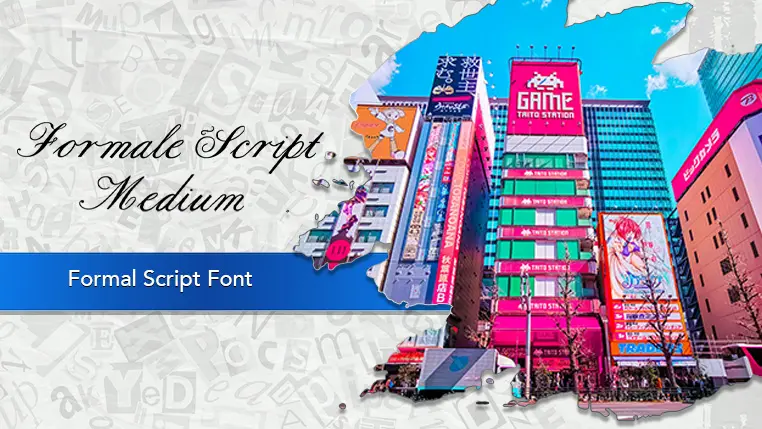
The Formal Script font family may be ideal for you if you enjoy working on an artistic design project. The lively, expressive look of this typeface, which was created by George Williams, makes it ideal for Logos and Branding. The font's sophisticated and graceful style makes it an excellent choice for wedding invitations, formal event announcements, diplomas, and certificates. Use it for headlines in advertisements, posters, or on product packaging to make a bold, elegant statement. and other light-hearted visual projects.
Medium, Bold are the two primary font styles of the Formal Script font family. You may build dynamic, visually appealing text layouts with the distinct flair that each style offers. With crisp, readable lines and a relaxed tone.